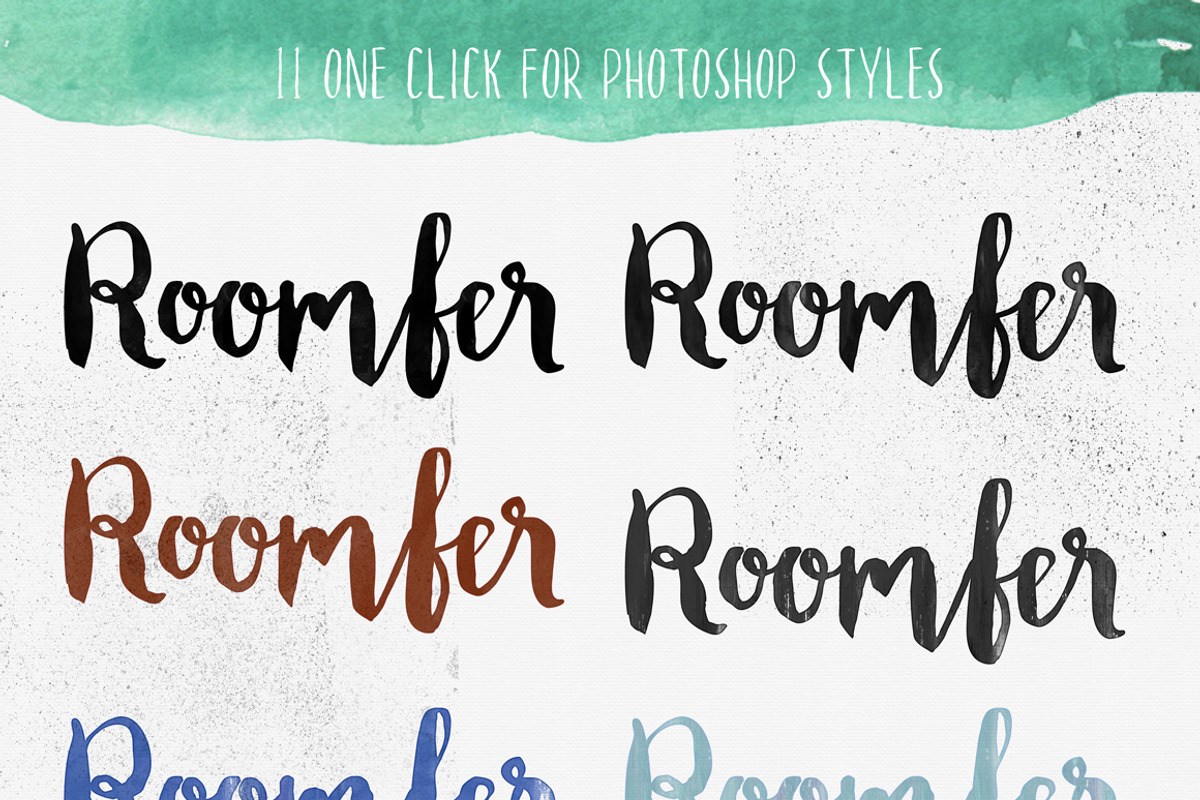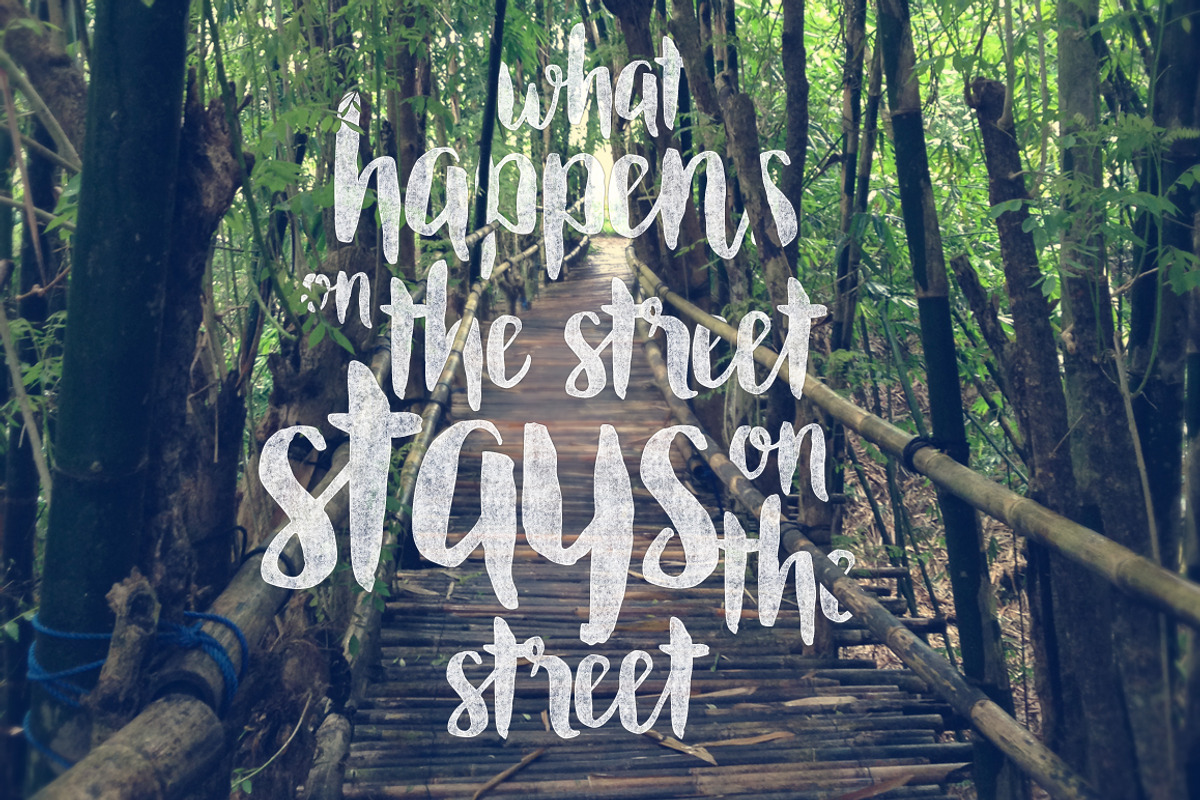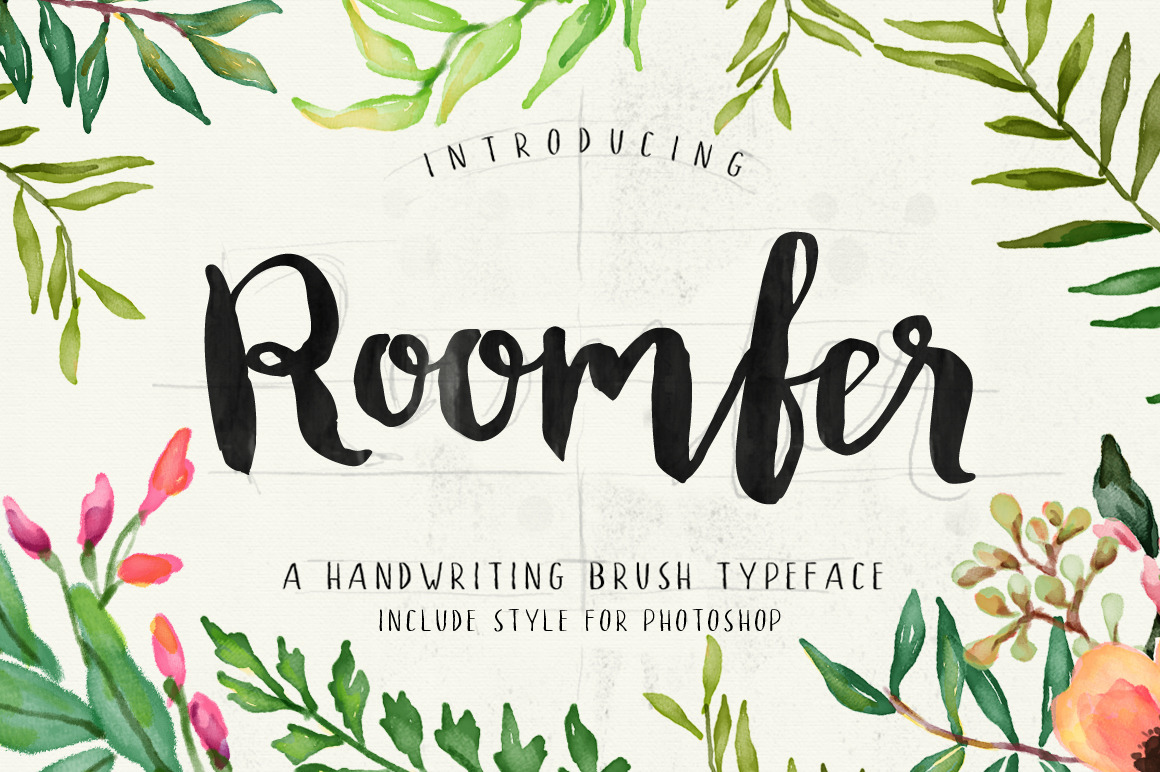
Roomfer font + Style Photoshop
Present Roomfer font bold handwriting style brush. unique case characters, fun and different fonts, particularly suitable for designs that have a concept of relaxed and not so serious. These fonts are also supported by international characters.
Roomfer font is suitable for use as the title text, logotype, hand drawing design concept, wedding invitations name etc.
In addition you get Roomefer handwritten letters, you also get Roomfer Sant Serif font and there was including 11 watercolors styles for one click photoshop.